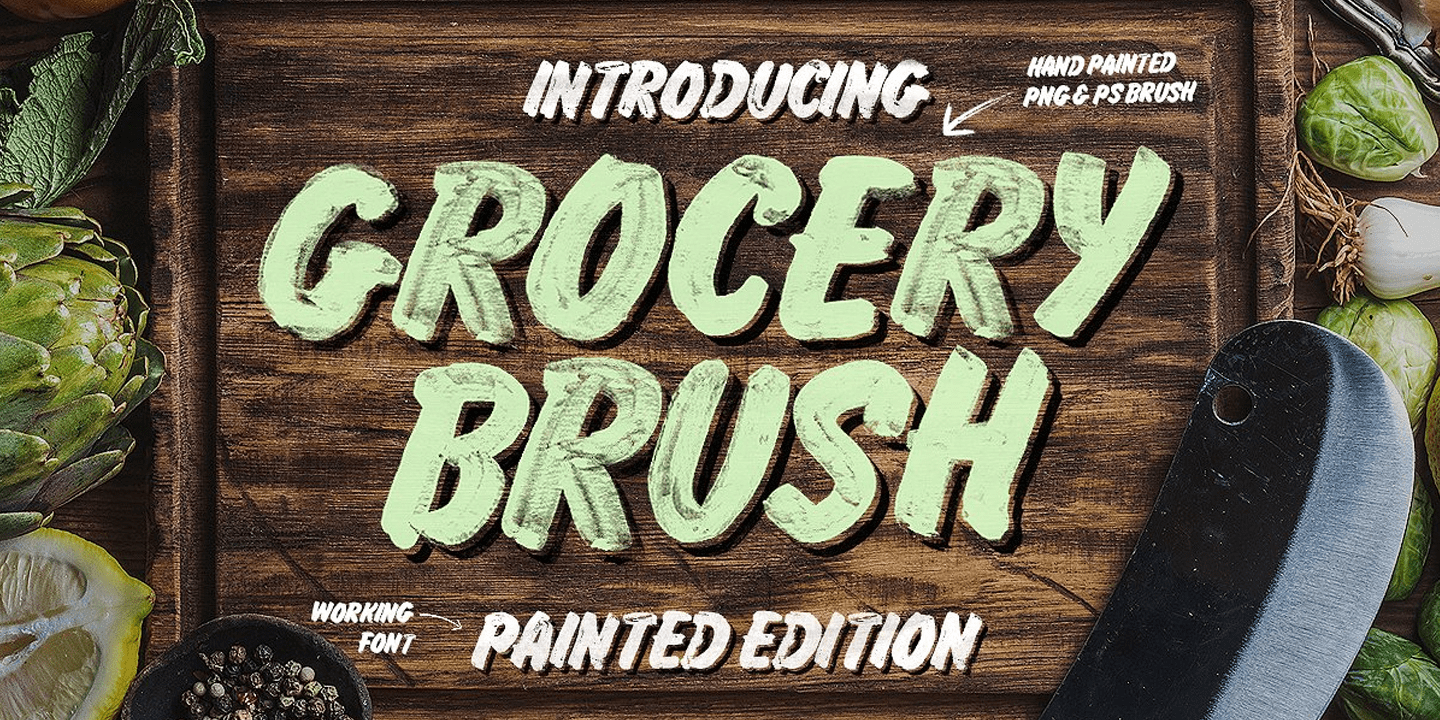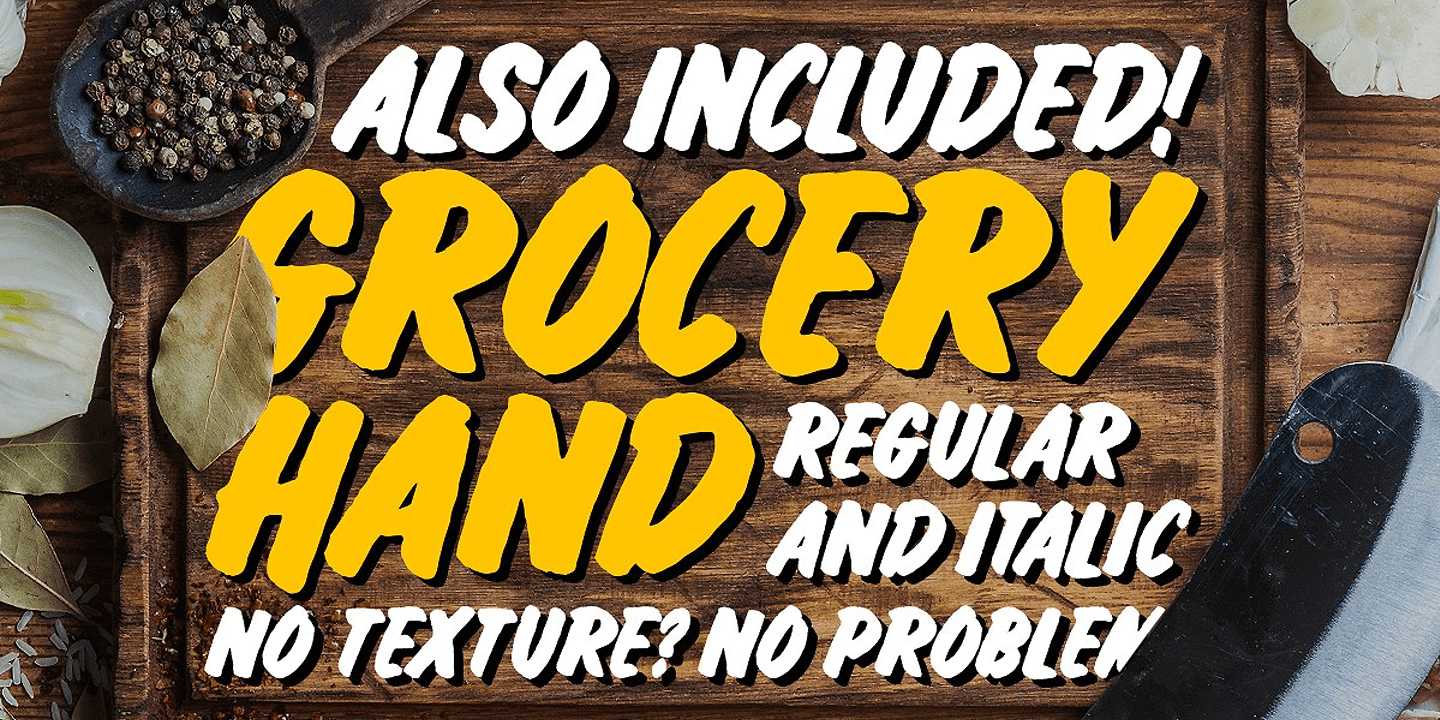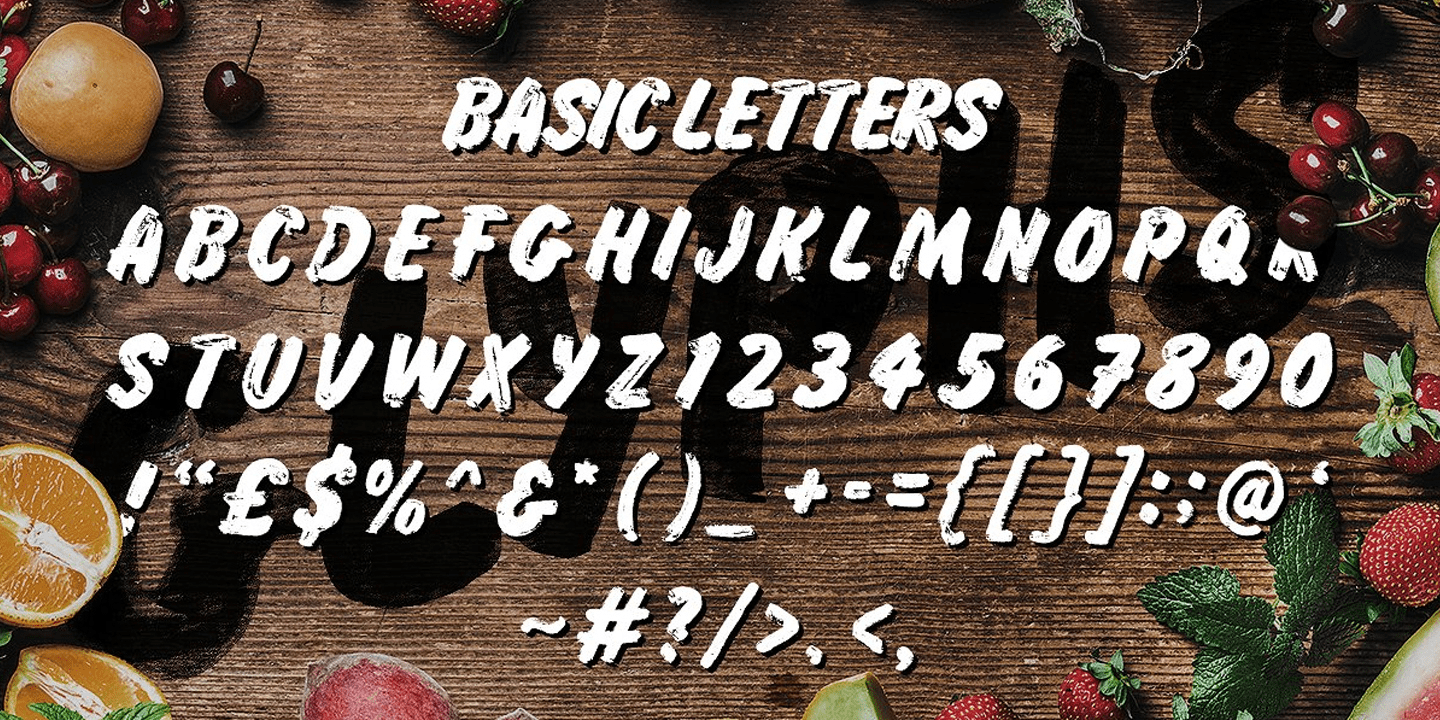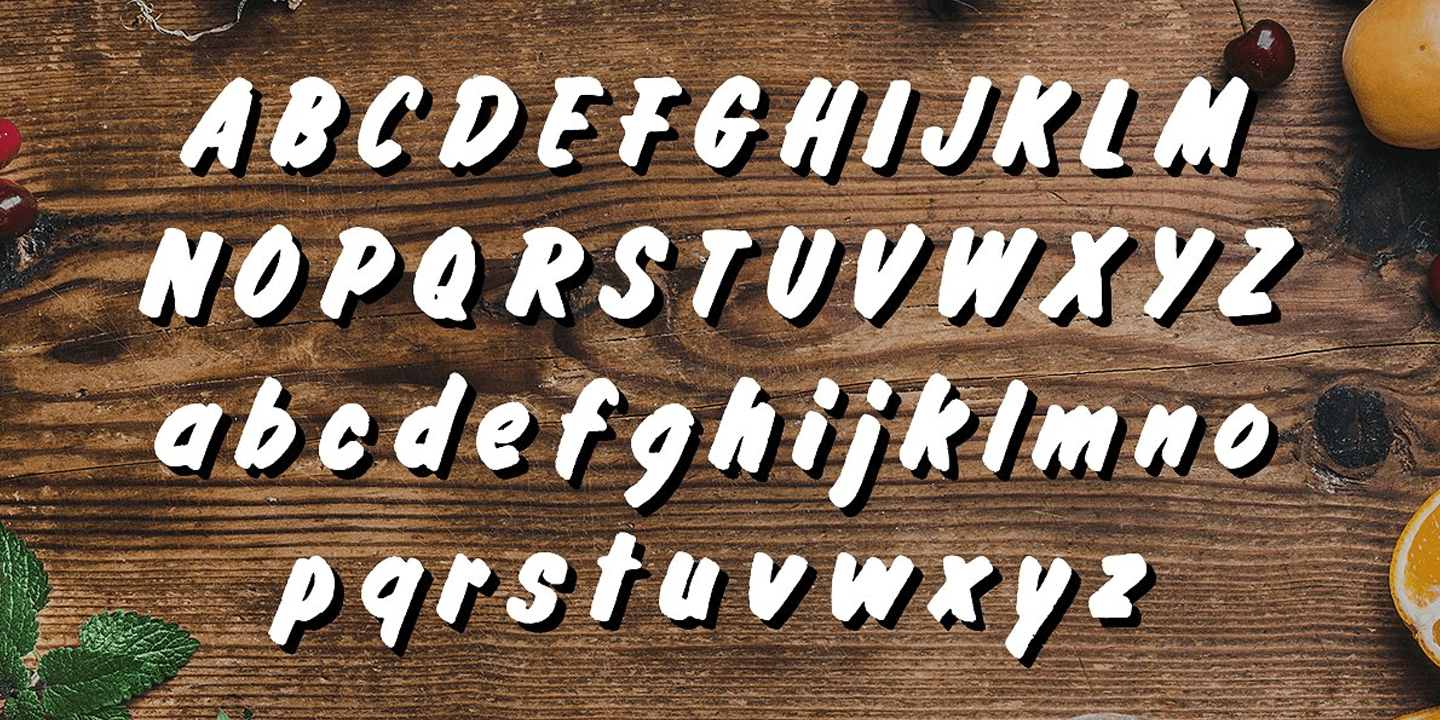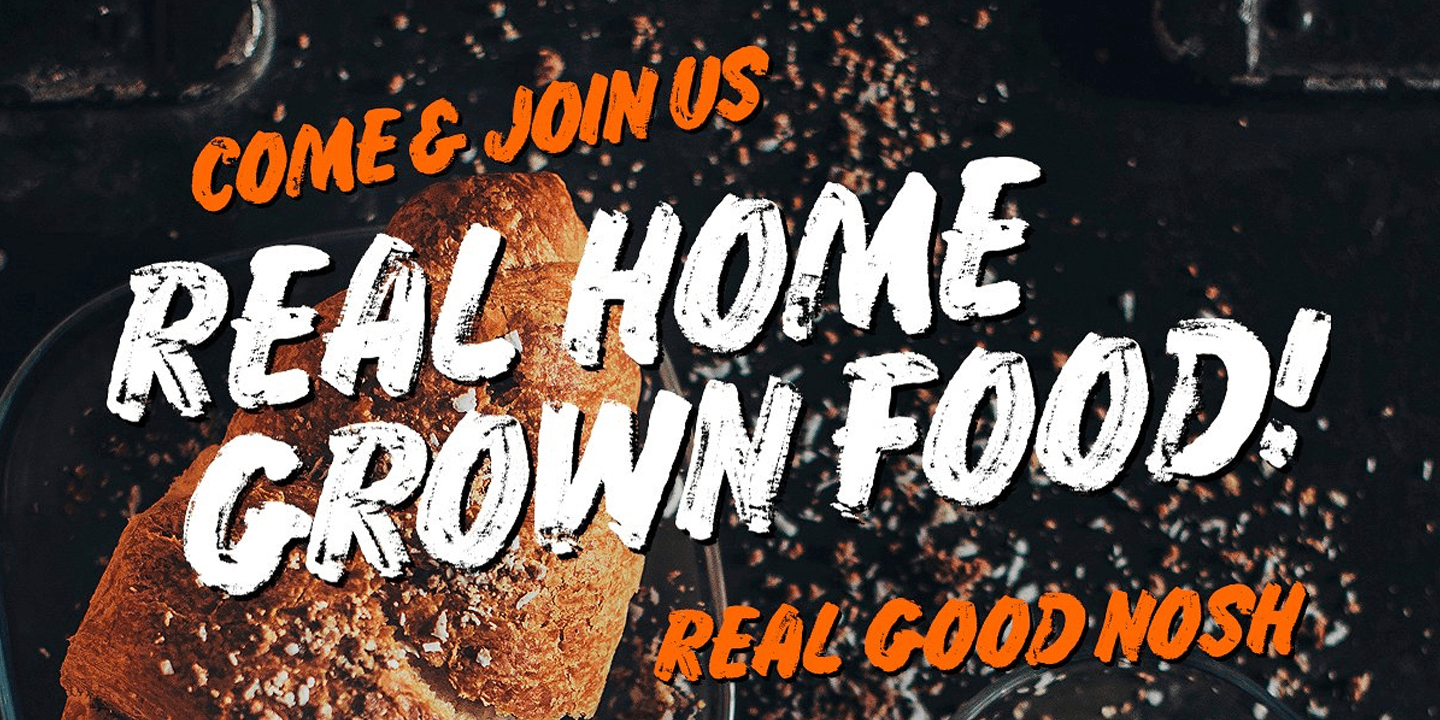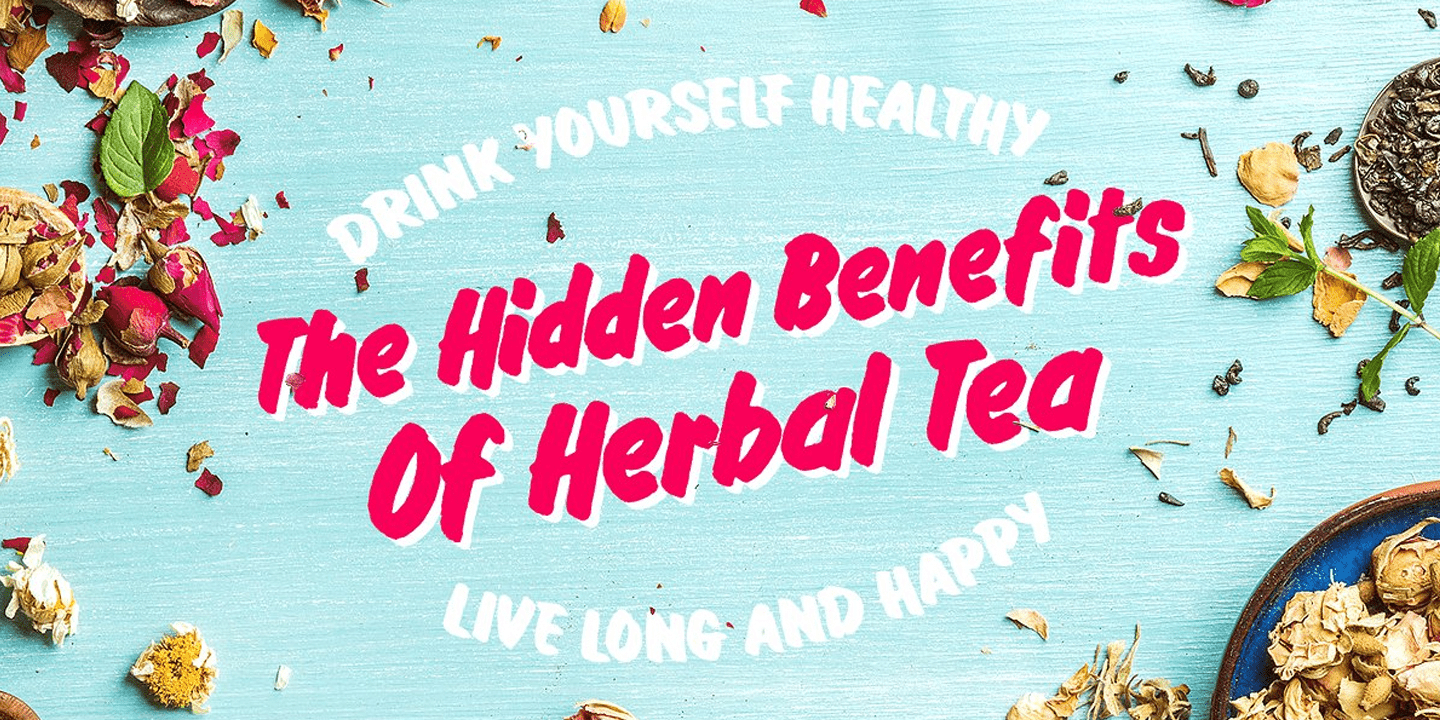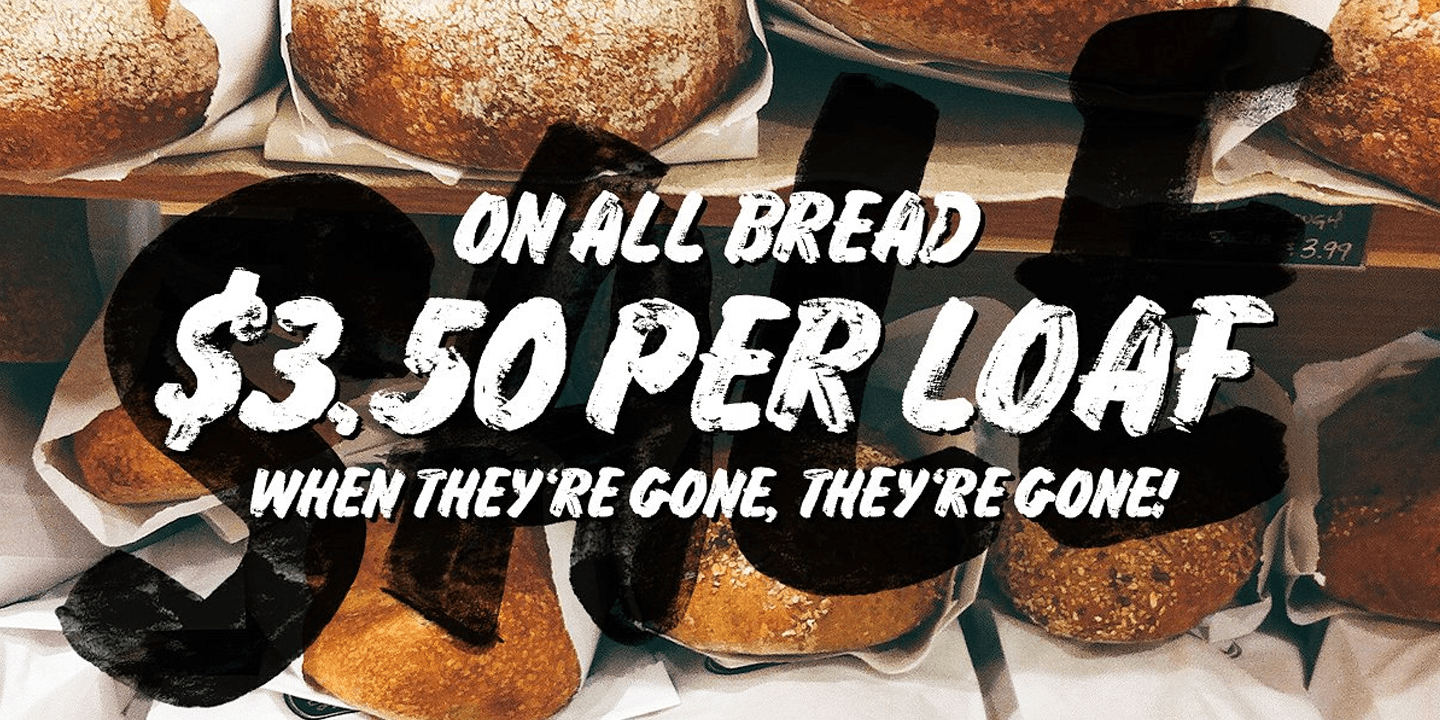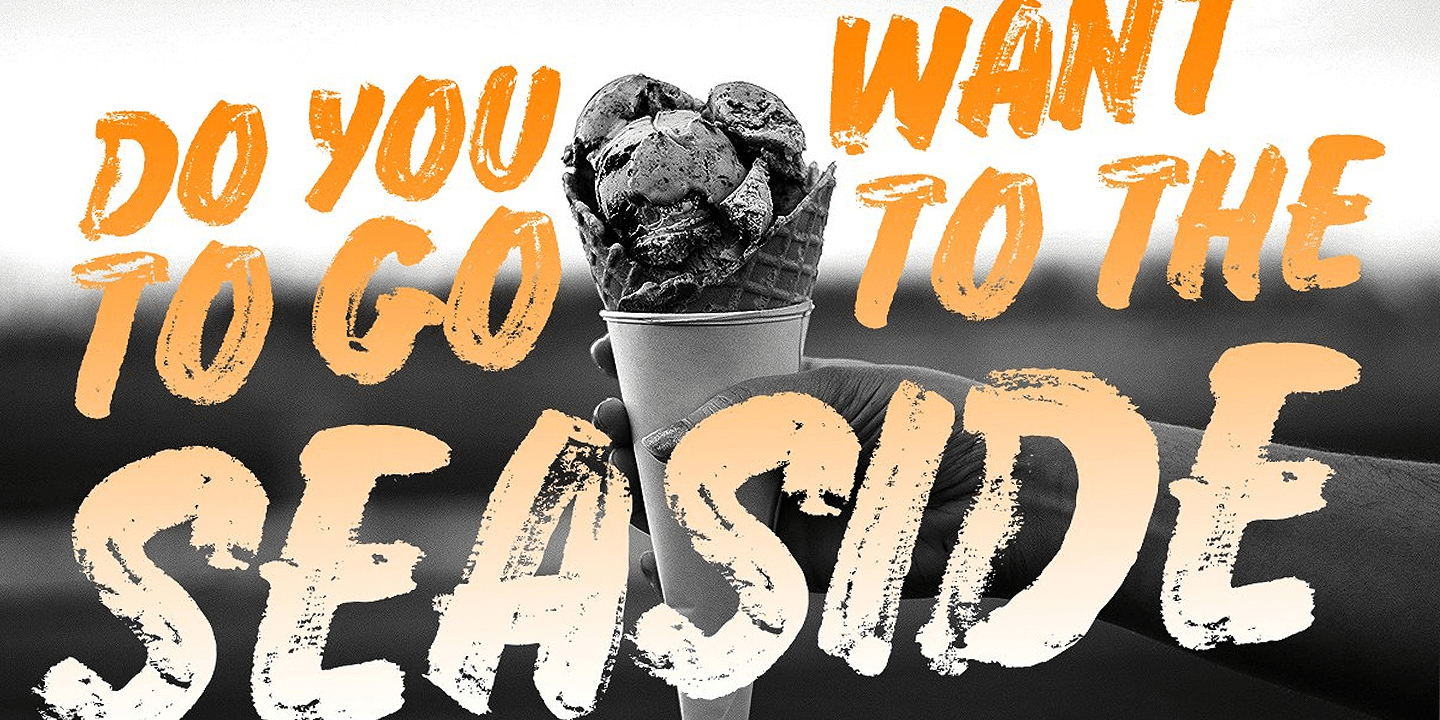
Grocery Brush
Font Family by Tom Chalky
I'm very pleased to introduce you to the Grocery Font Family, a realistic brush script inspired by classic signwriting. It includes a rough and ready brush script (Grocery Brush) and a cleaner alternative (Grocery Hand) both inspired by classic food-market signwriting.
Grocery Brush - Every effort was made to ensure the quality of texture in each letter was as high as possible. Fonts can only be so detailed, so after testing the limits of my software (and crashing it several times) I was eventually able to come up with what we have before you.
Grocery Hand - The template for its brushed alternative, Grocery Hand was the starting point for this creative family and is available in a regular and italic style. Also, this font includes lowercase glyphs (Grocery Brush does not).